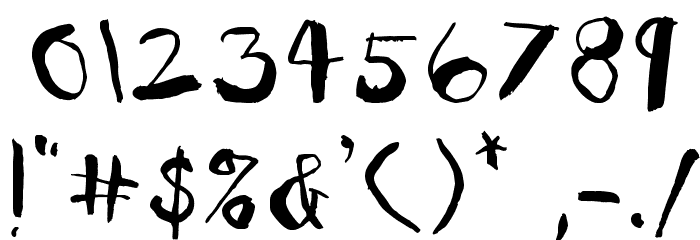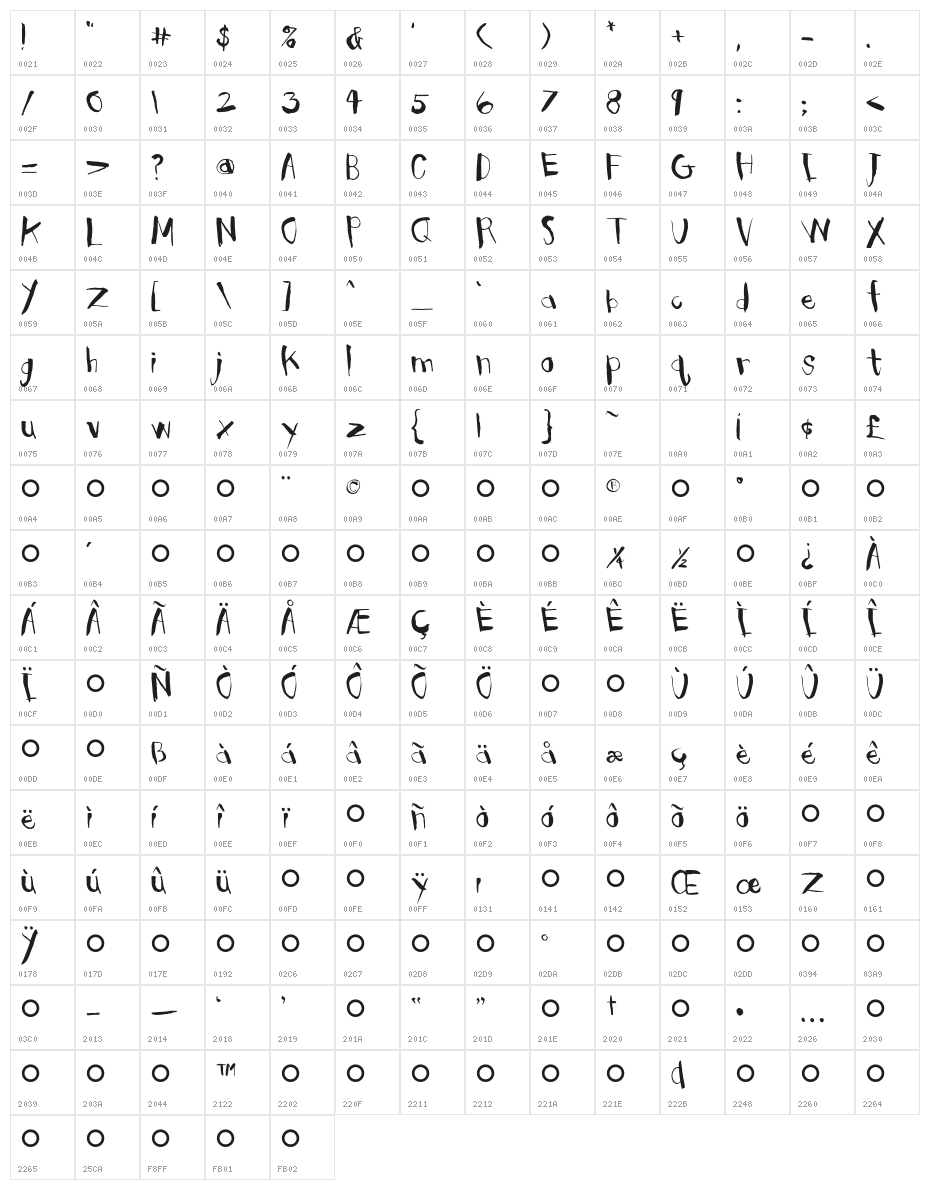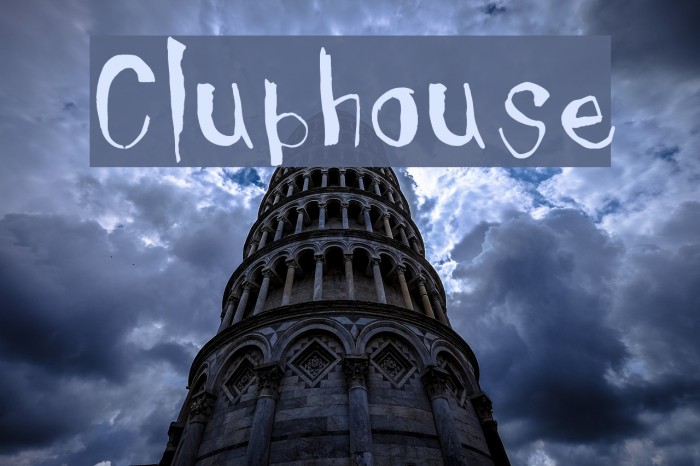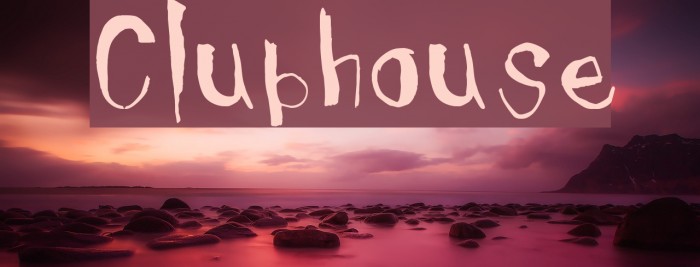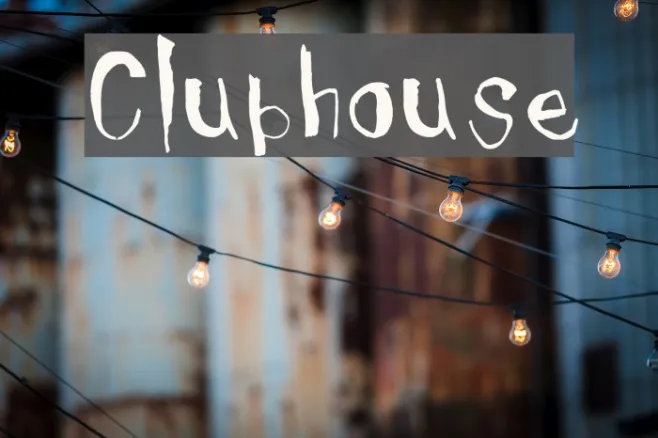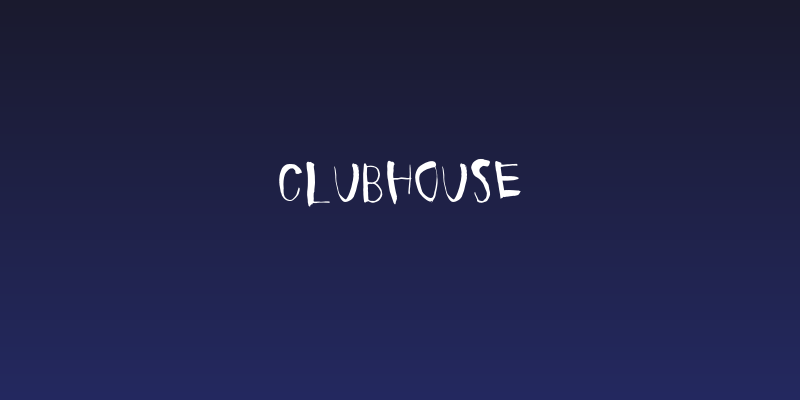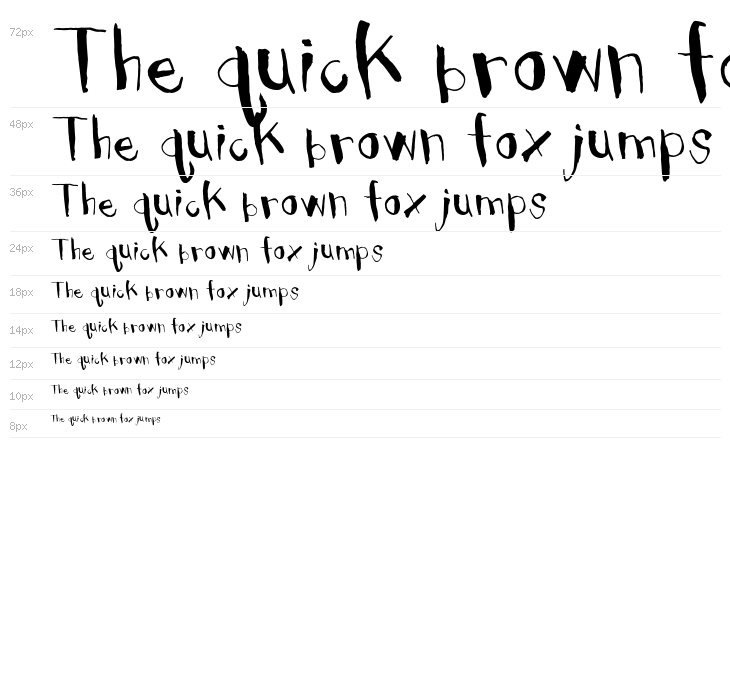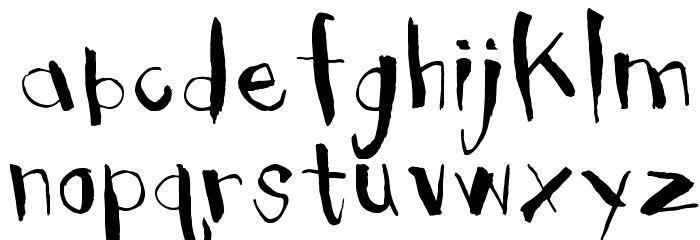
Clubhouse Font
Clubhouse Description
This font features a playful and artistic style, characterized by its hand-drawn appearance. The letters exhibit a whimsical and uneven quality, with varying stroke thicknesses that add to its charm. The uppercase and lowercase letters maintain a consistent style, while the numbers and special characters complement the overall design. The font's irregularities and unique character shapes give it a lively and informal feel, making it suitable for creative and casual projects. Its distinctive look can add a touch of personality and fun to any design.
| Proposed Projects | Ideal for children's books, creative posters, greeting cards, and playful branding. |